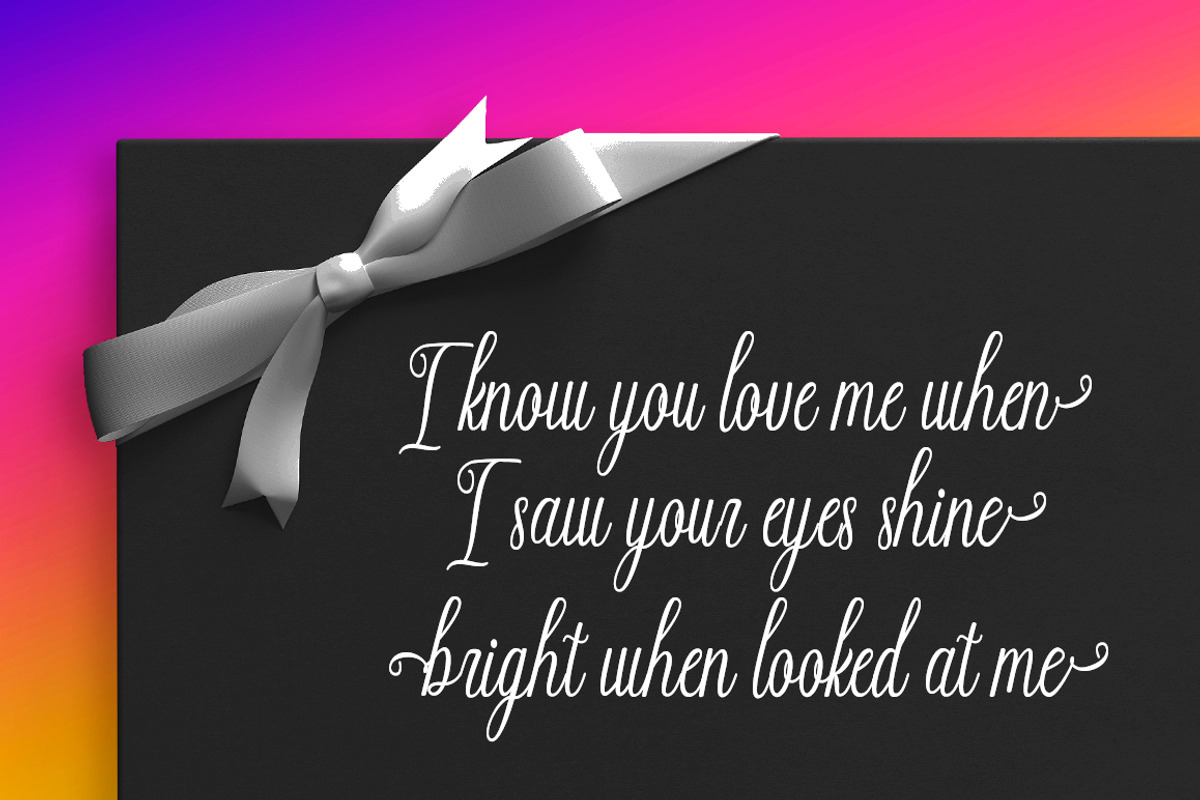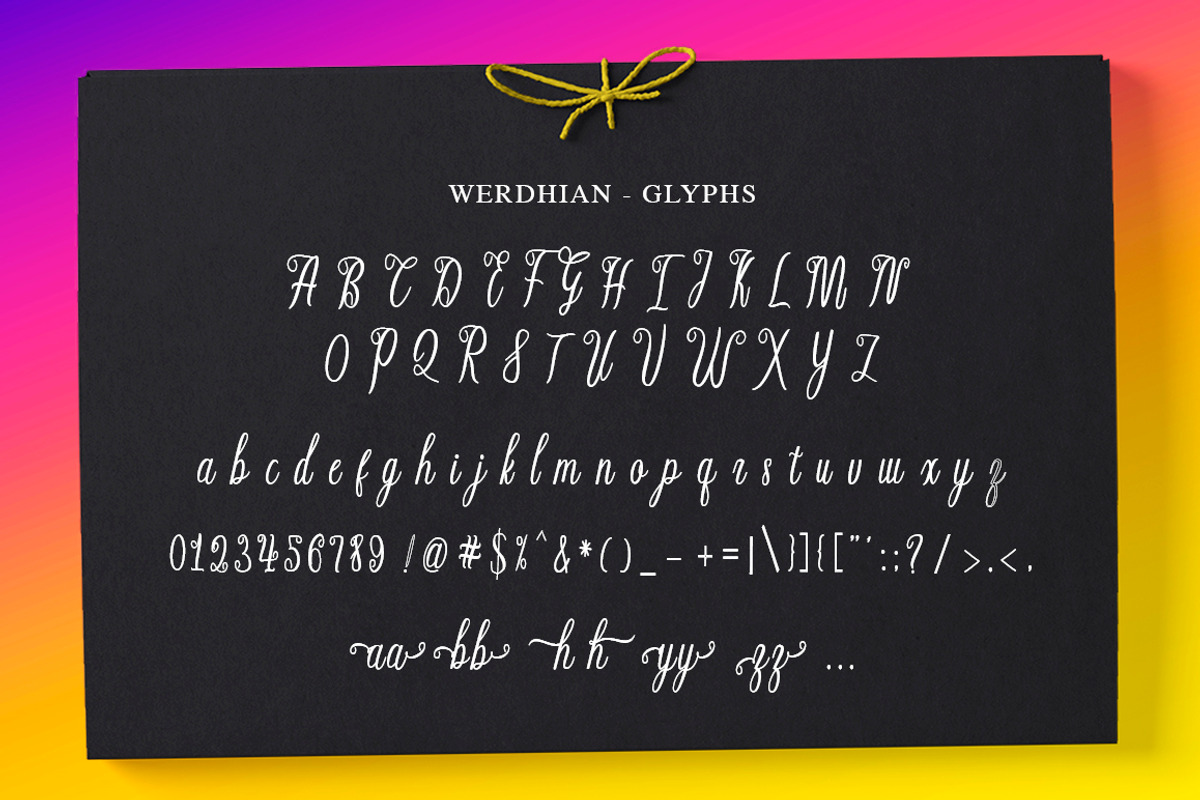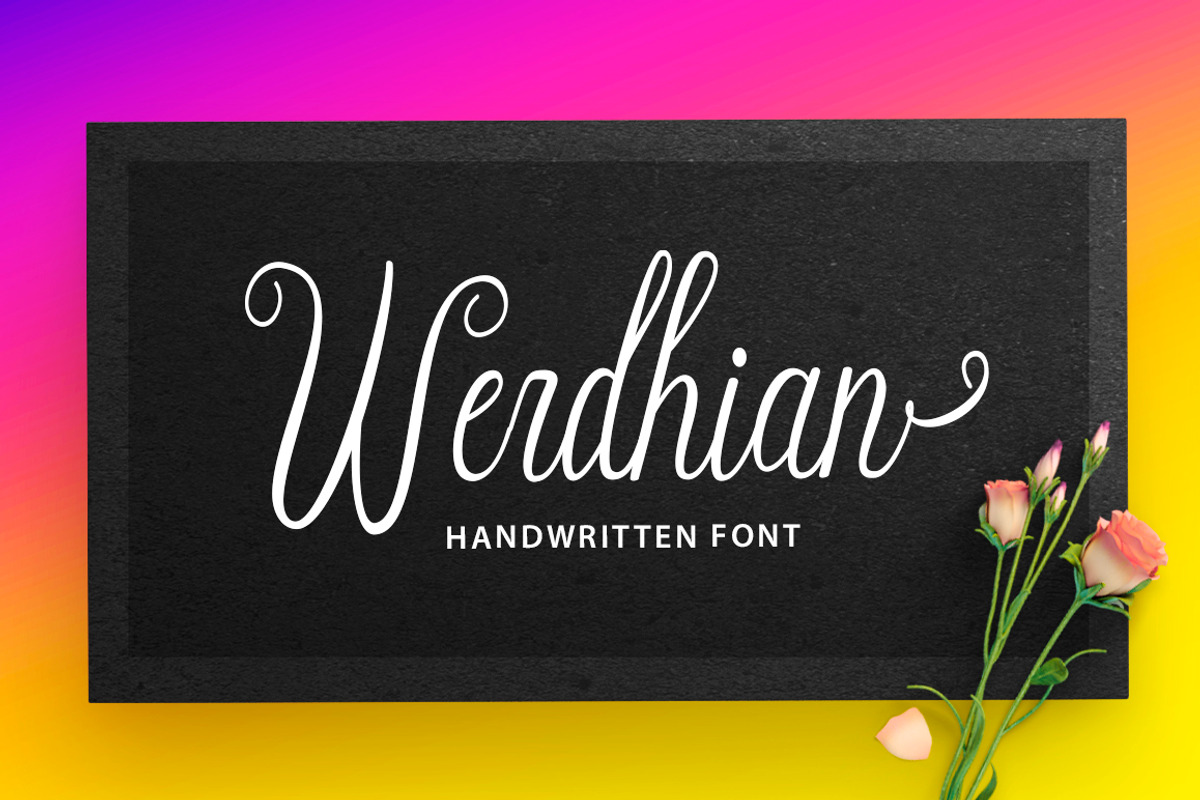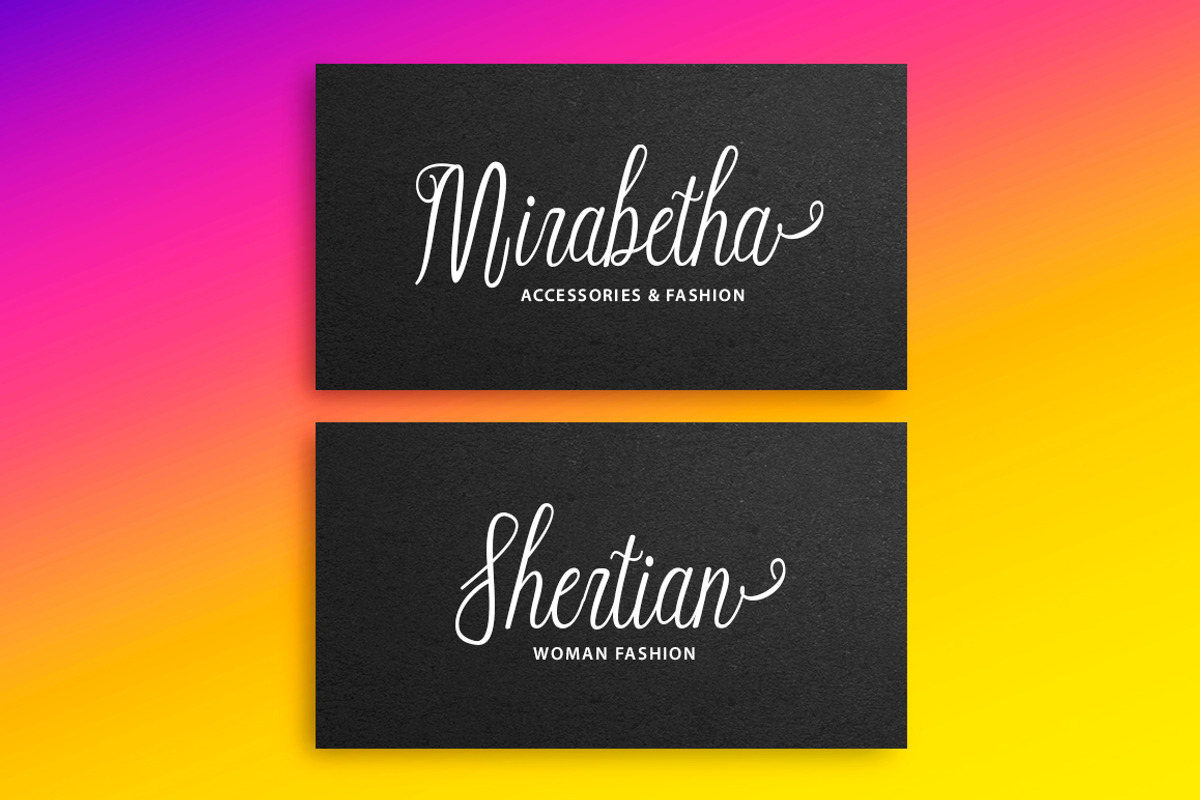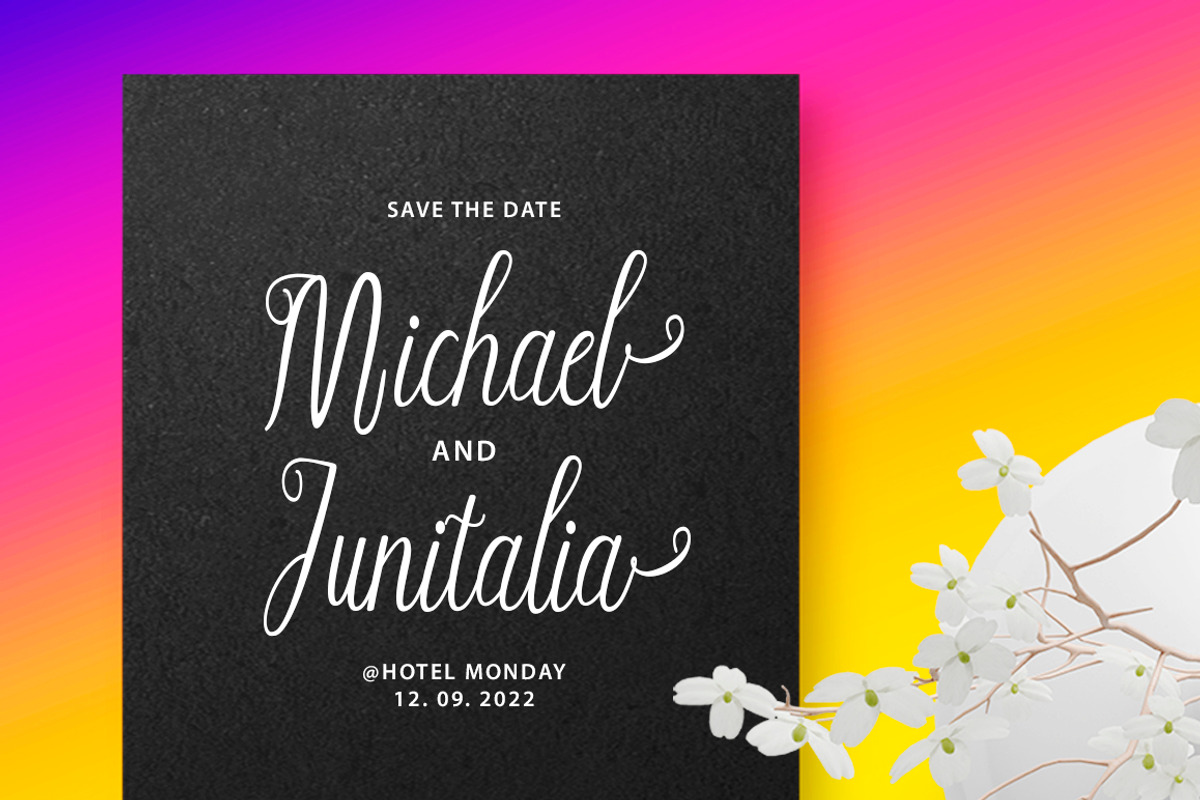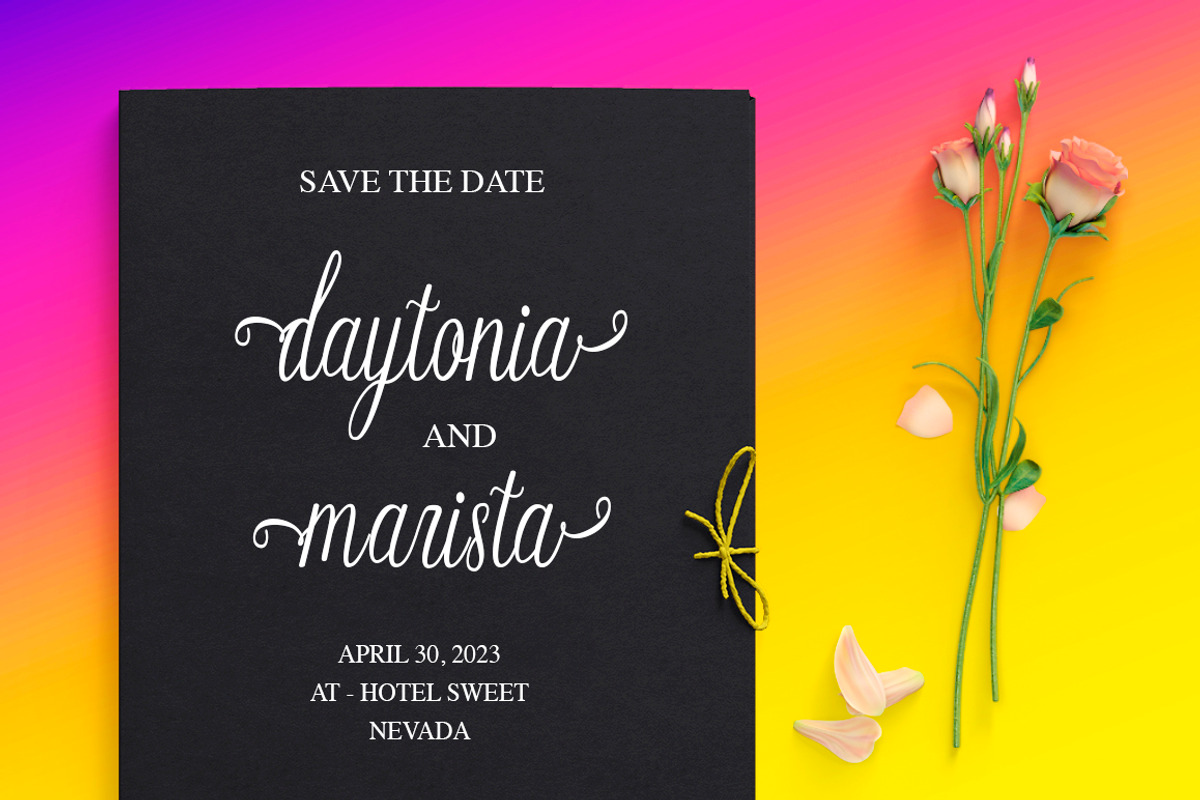
Werdhian Script
Werdhian Script is elegant handwritten font. a stylish and pretty with swashes. Features Open type feature, stylistic alternates, including initial and terminal letters, ligatures and International support for most Western Languages is included. Perfect to creating modern designs like ads, logos, branding, quotes, poster, wedding invitation and more. that makes the font look fabulous!